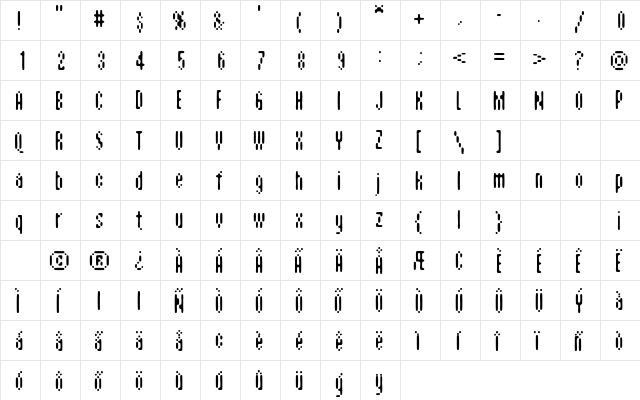
Aspersion Regular
Design Context for Aspersion Typeface
Aspersion takes a measured approach to typography — its balanced proportions and neutral character make it a reliable workhorse for both digital and print work.